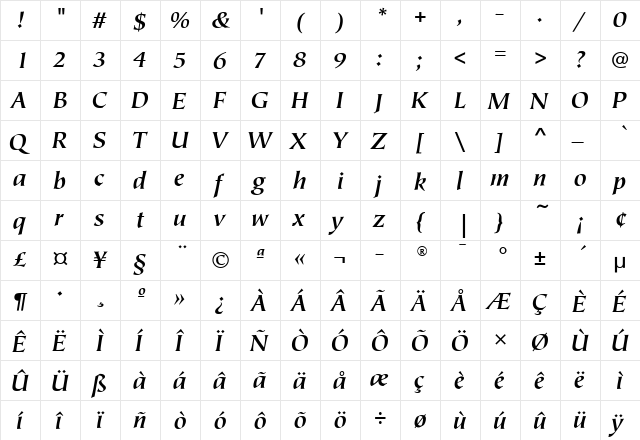
TiepoloITC Bold Italic Font Preview
Design Context for TiepoloITC Typeface
TiepoloITC takes a measured approach to typography — its balanced proportions and neutral character make it a reliable workhorse for both digital and print work. The dynamic lean of this cut emphasises speed and emphasis in any layout. The heavy weight commands attention and anchors typographic hierarchies.
Pro Tip: Try TiepoloITC for annotation and caption copy alongside an upright companion — the contrast in angle creates a dynamic but ordered typographic system.